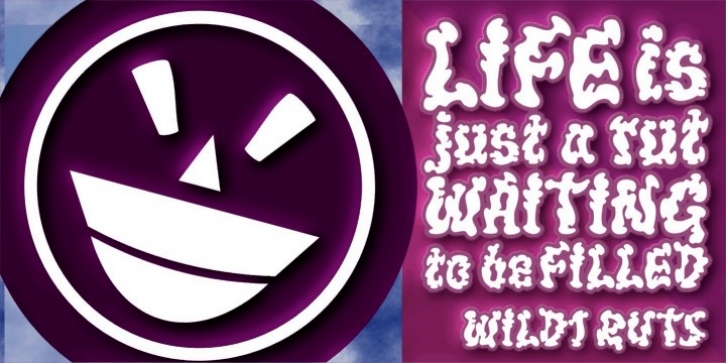
Ruts looks like it was found in a rut, and if you can eek past all that splatter, it may just pull you out of one. Talk about having to be brave to use a wild font! Did someone break a lava lamp? Ruts is just one font in a package of five known as Wild Bunch Pak #1.